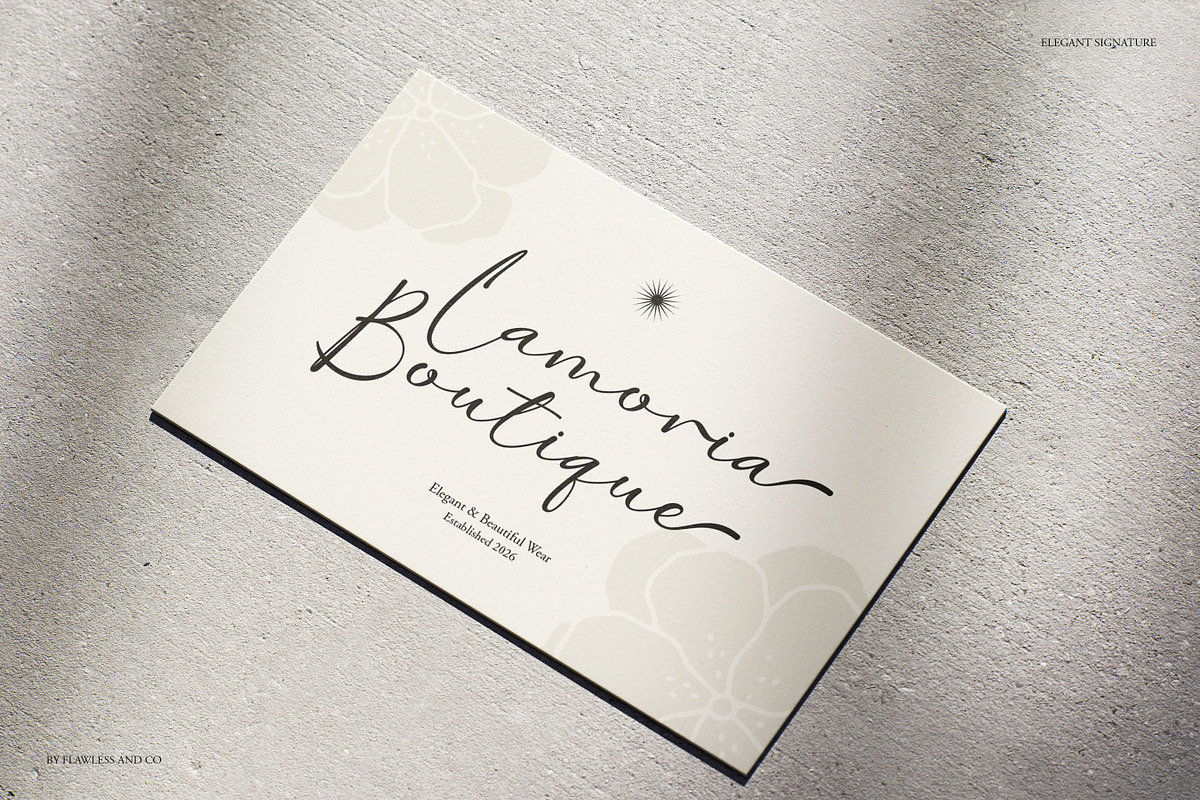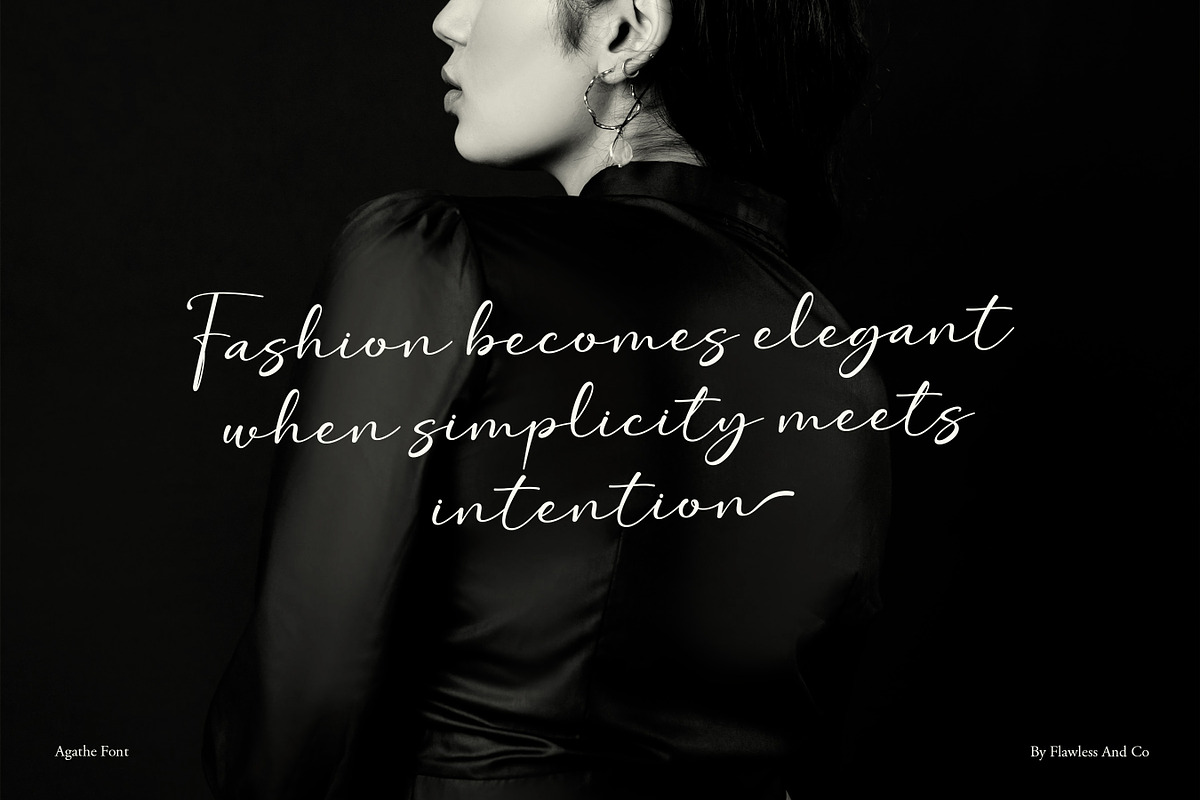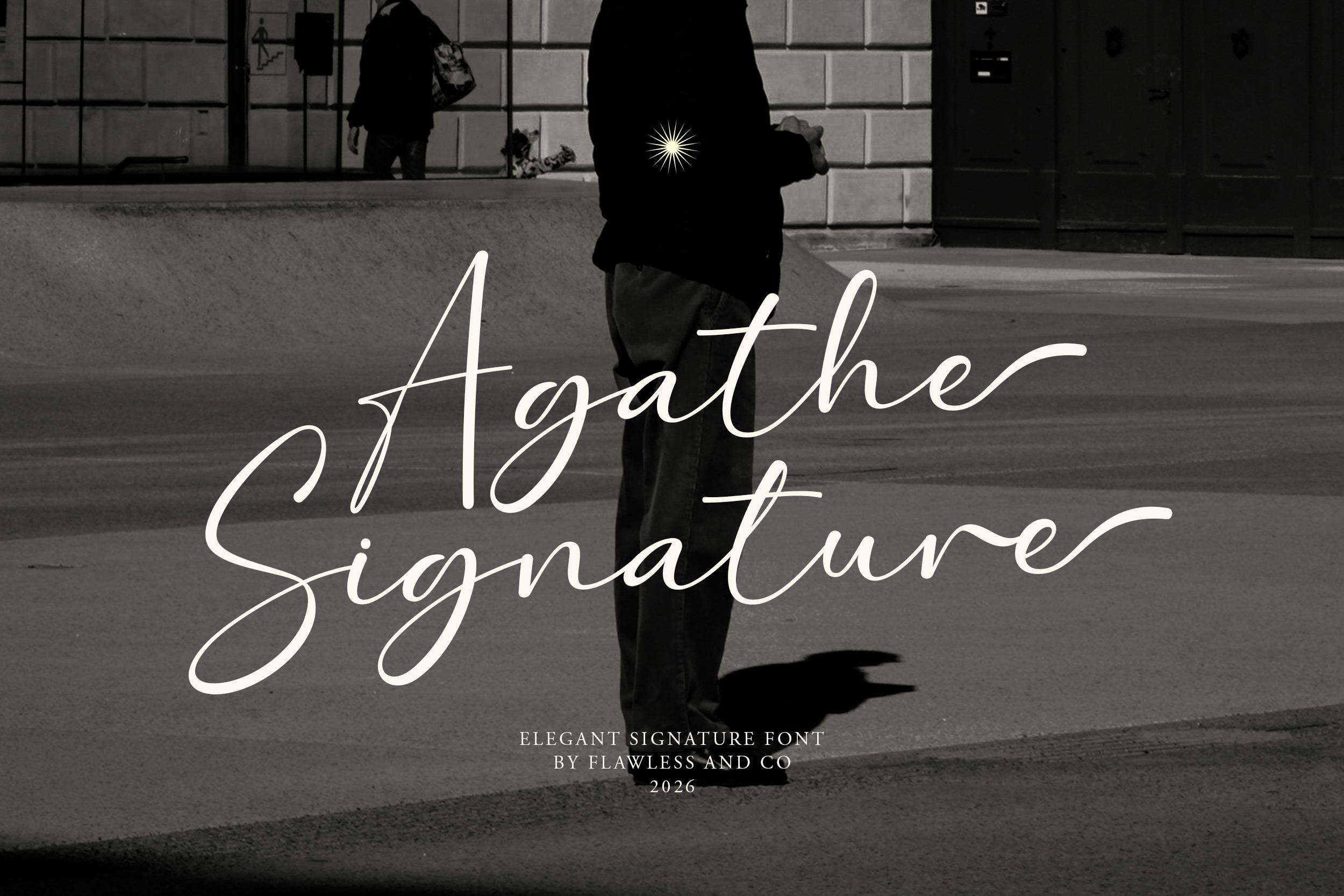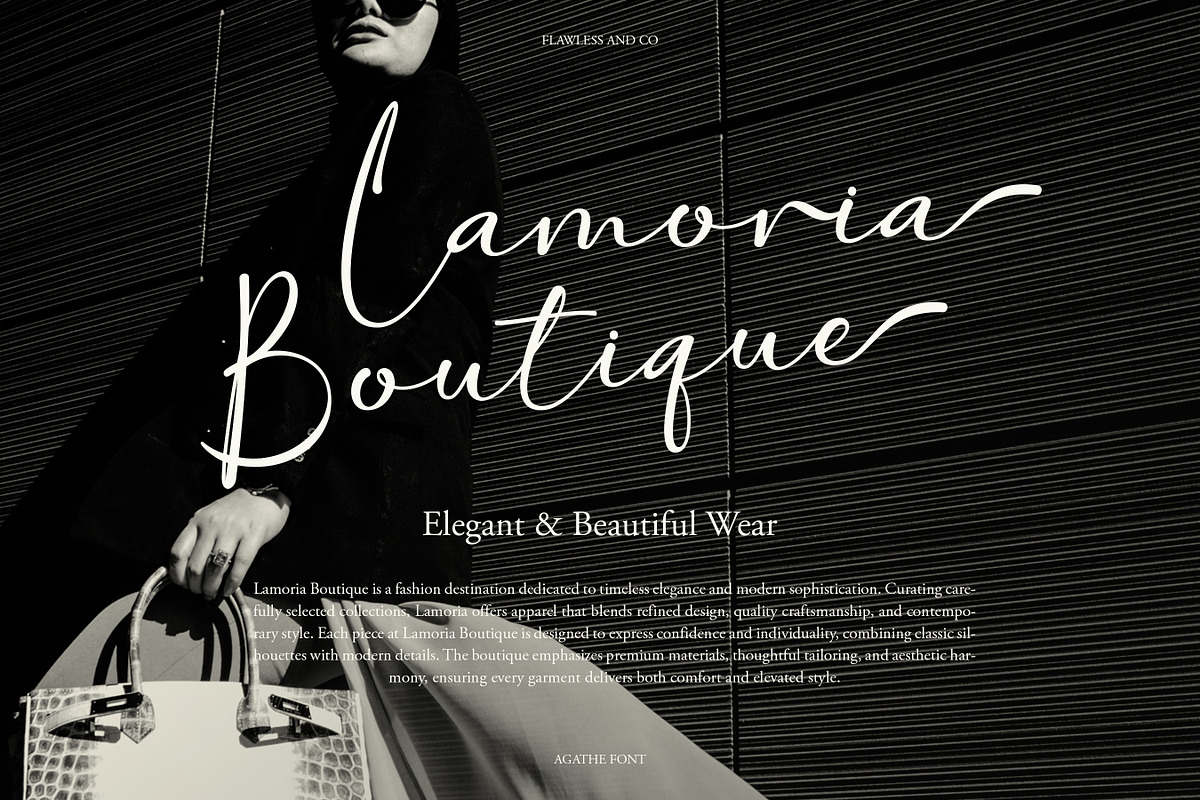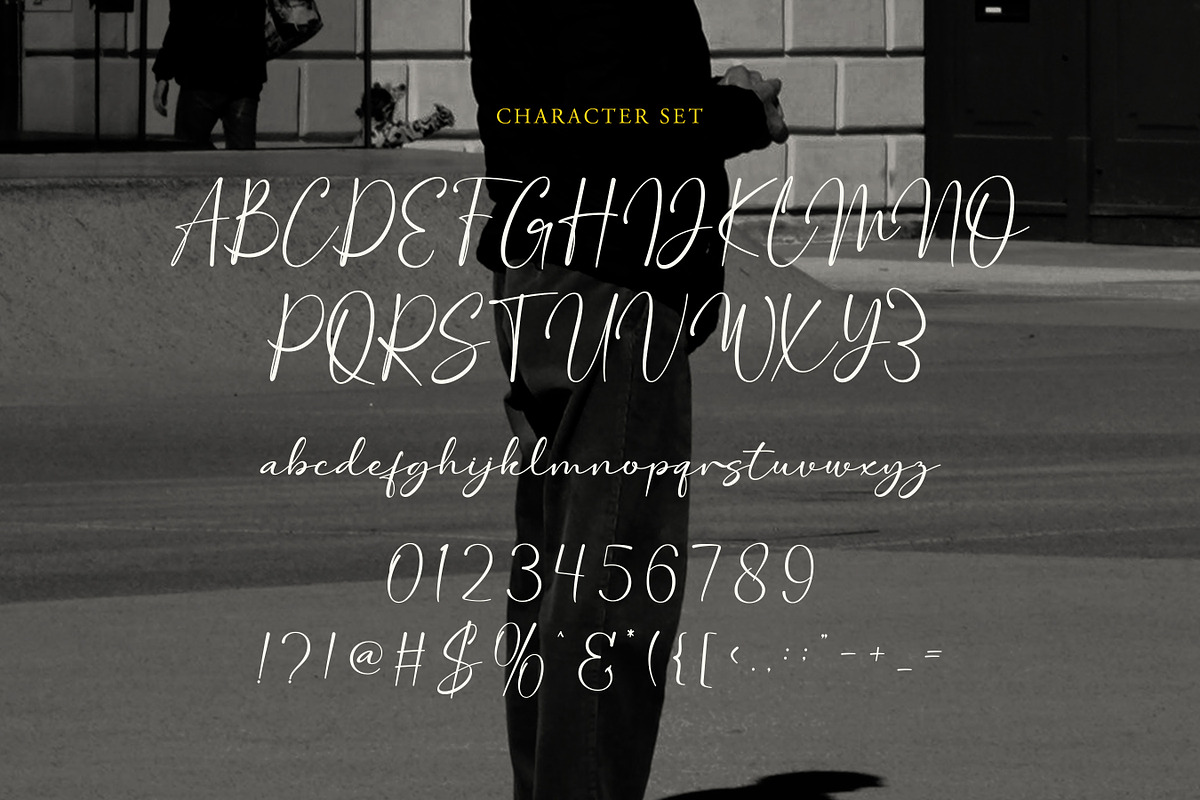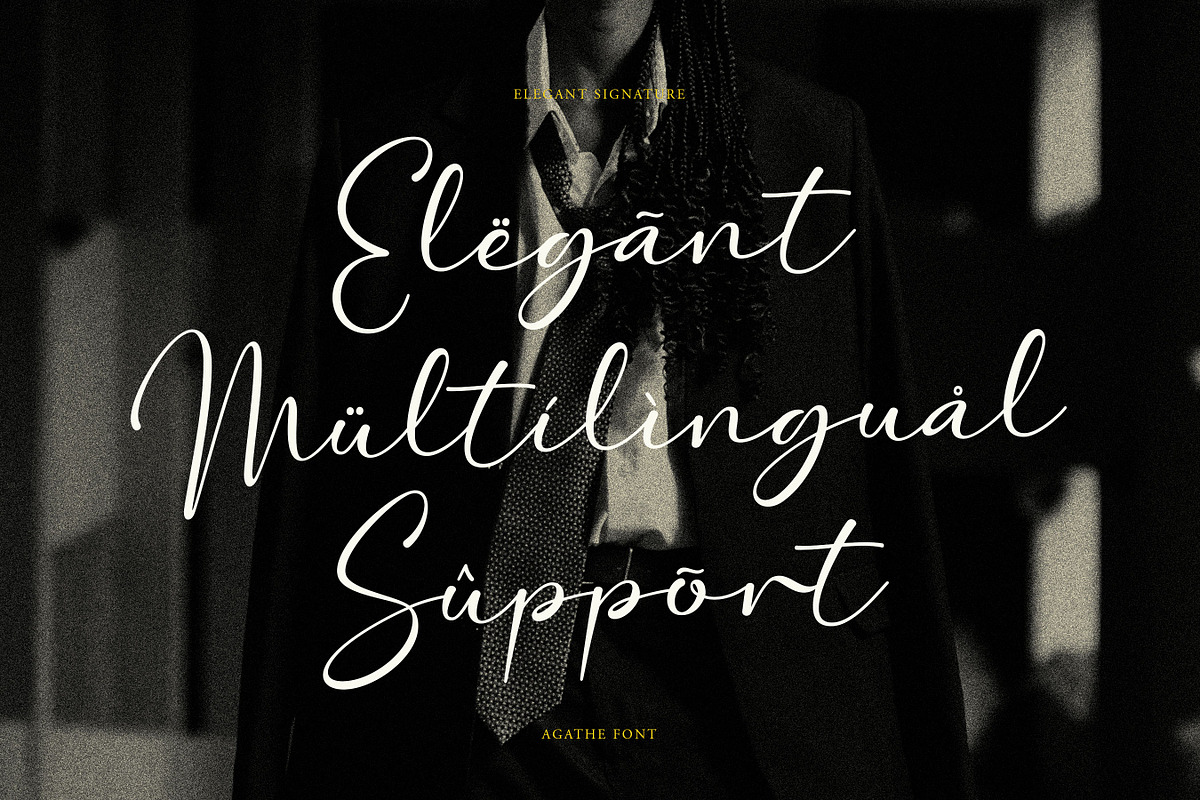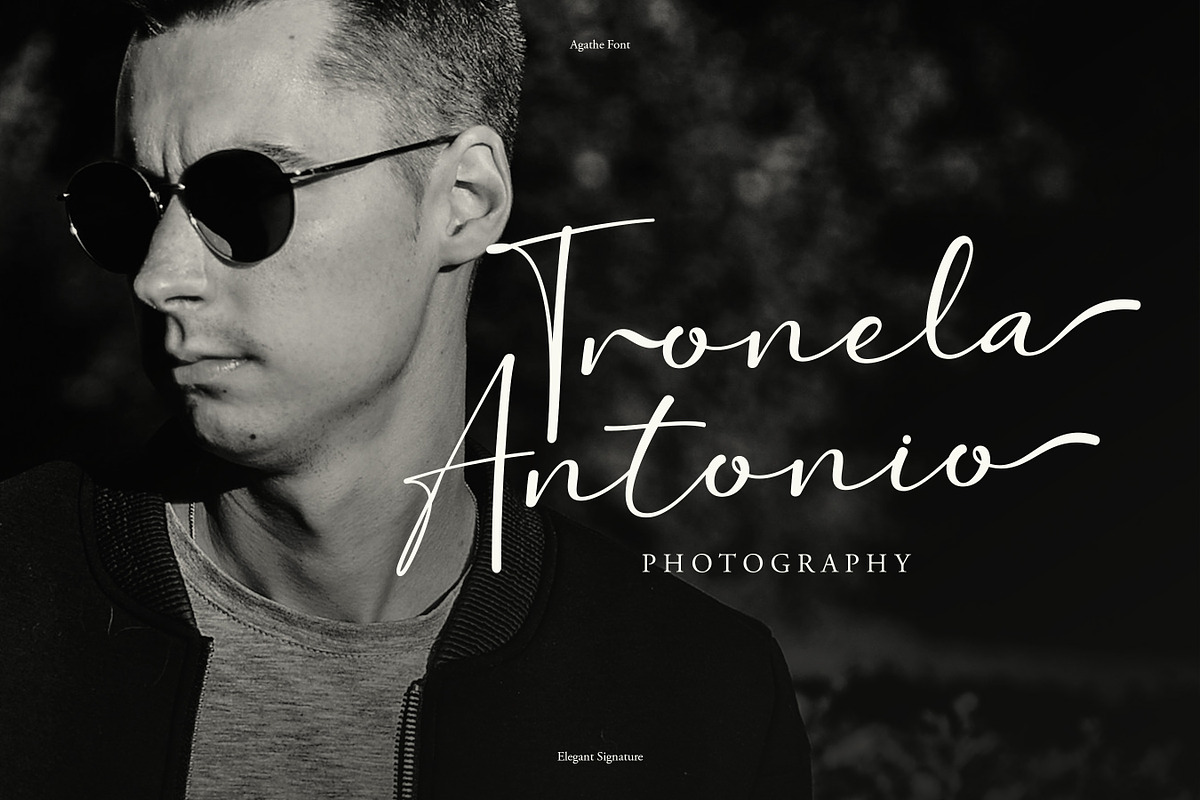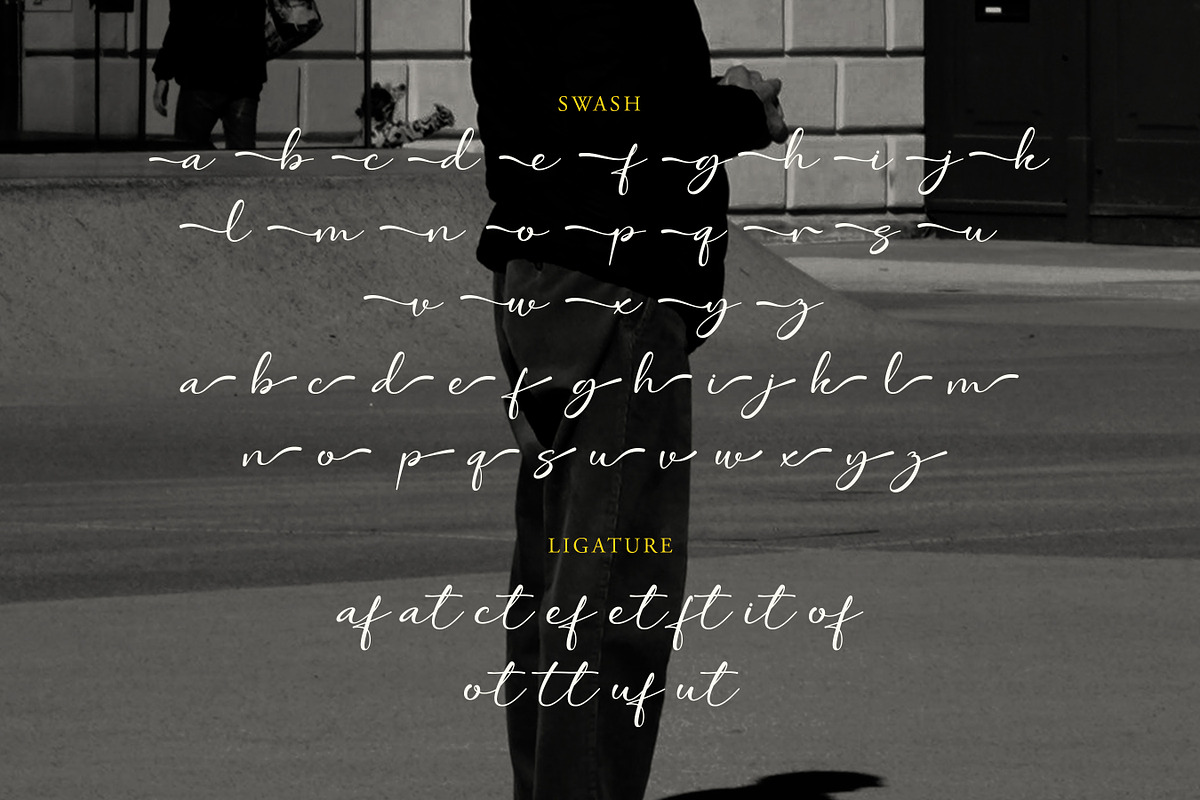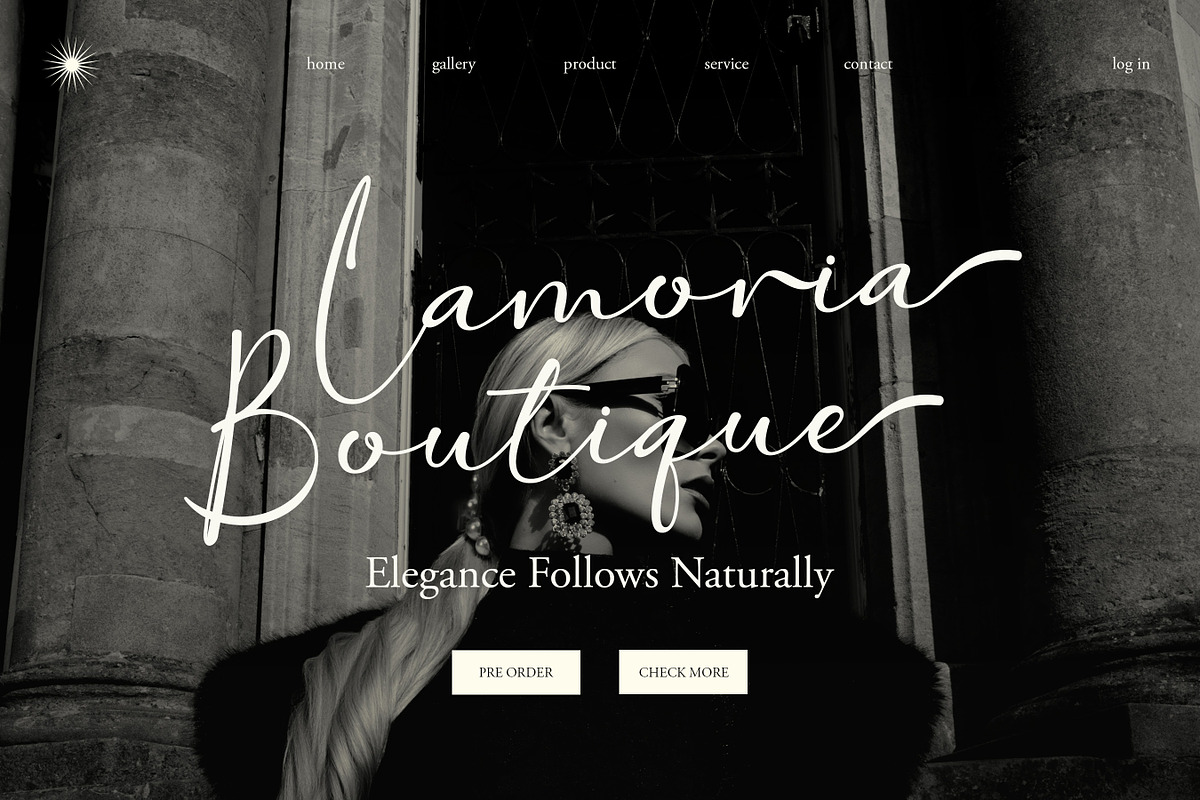
Agathe - Handwritten Font
Agathe Signature is an elegant handwritten signature font crafted to capture the beauty of natural handwriting with a sophisticated and modern touch. Featuring smooth flowing strokes and delicate curves, this font brings a graceful and personal character to every design. Designed to feel authentic and stylish, Agathe Signature is perfect for luxury branding, wedding stationery, fashion logos, and high-end packaging.
Who Should Use Agathe Signature?
Agathe Signature is perfect for designers and creatives who want to add a refined, handwritten touch to their work. It’s ideal for brand designers developing elegant logos, especially for fashion, beauty, and luxury businesses that require a sophisticated signature style.
Suitable for:
- Luxury and fashion branding
- Signature-style logos
- Wedding invitations and stationery
- Beauty and boutique packaging
- Social media and personal branding
- Photography watermarks
- Elegant quotes and typography designs
- High-end marketing materials